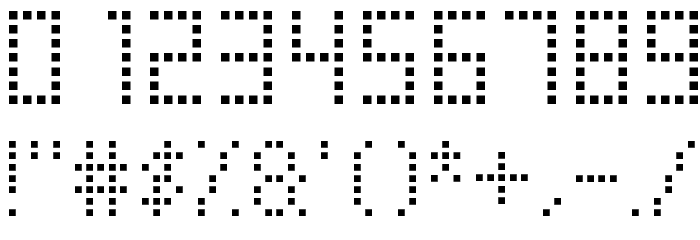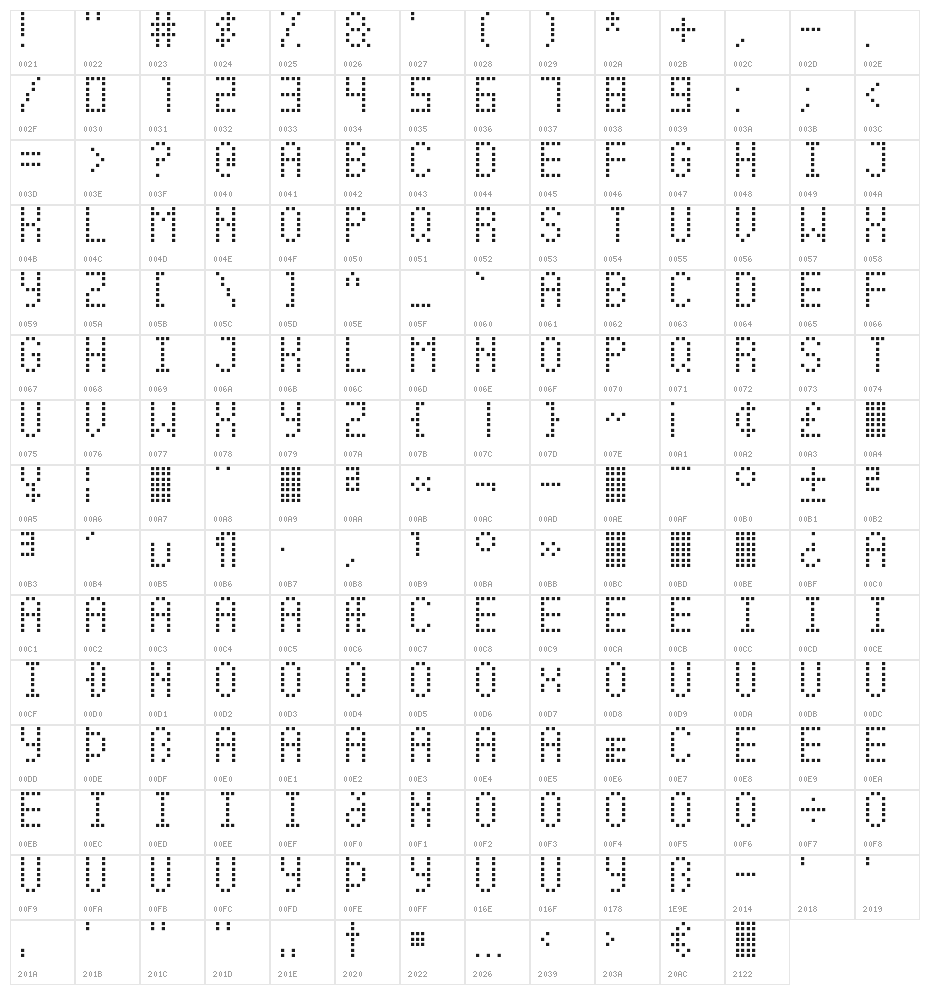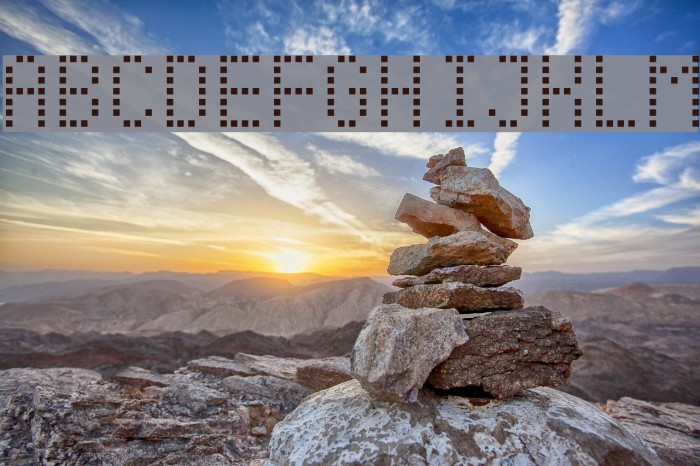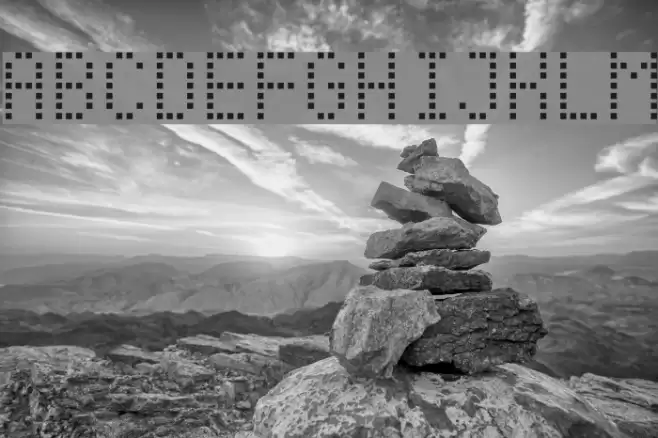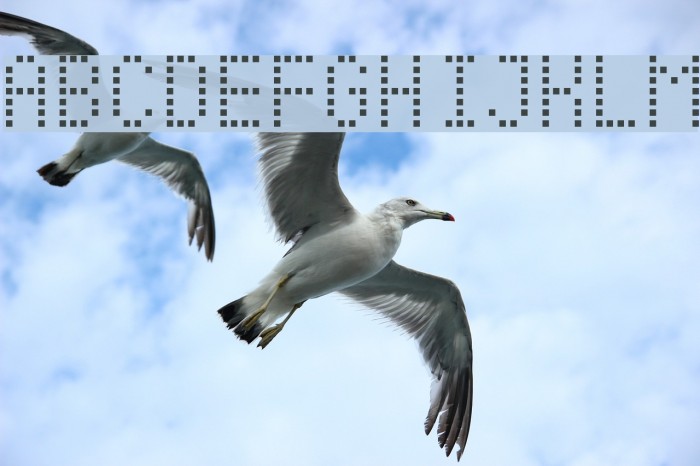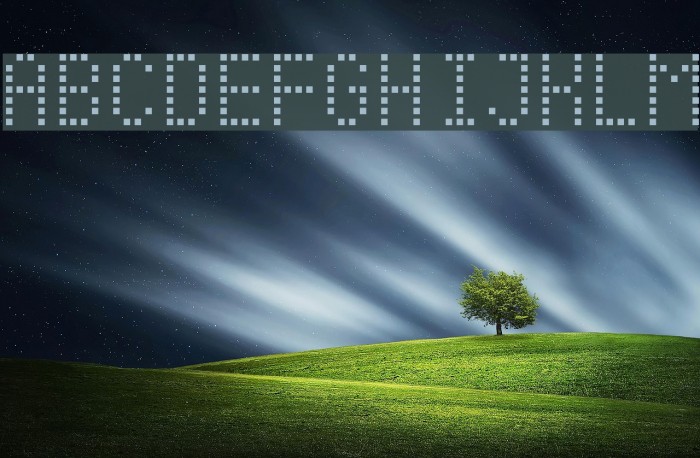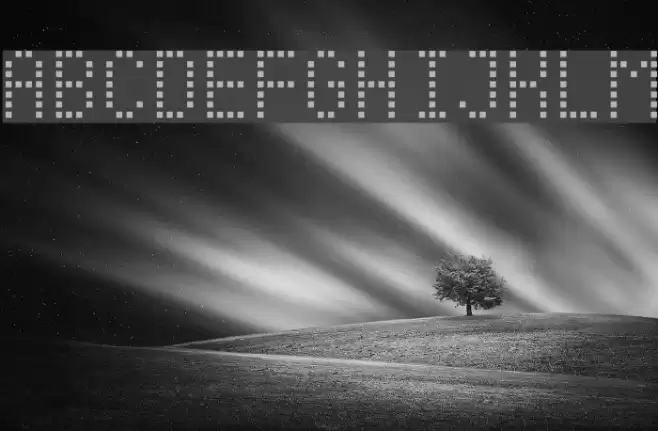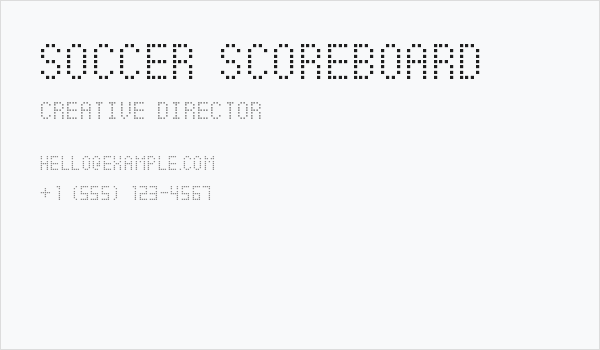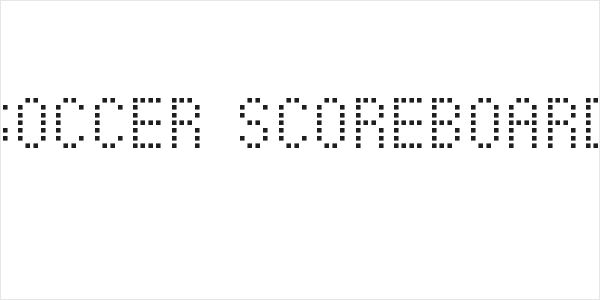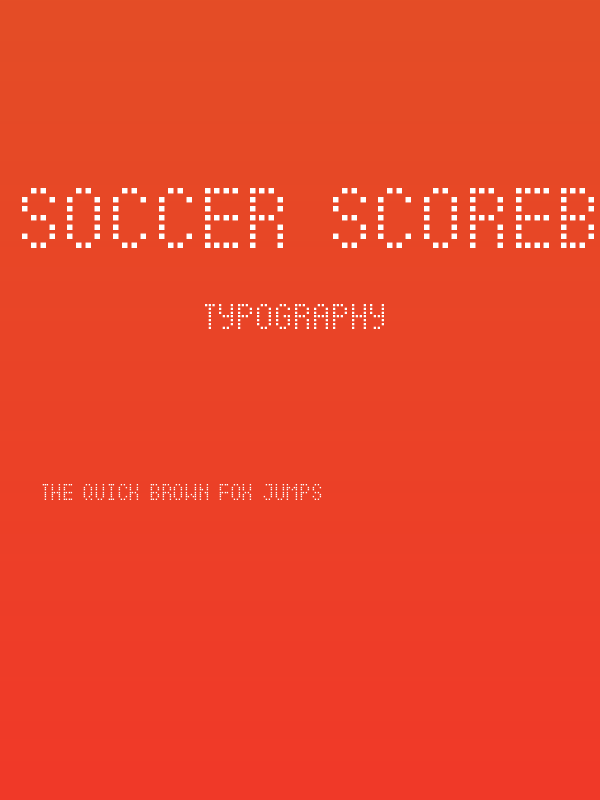
Soccer Scoreboard Font
Soccer Scoreboard Description
This font is designed with a digital dot matrix style, reminiscent of old-school electronic scoreboards and digital displays. Each character is constructed from a grid of dots, giving it a pixelated appearance. The uniformity of the dots creates a consistent and structured look, ideal for conveying information in a clear and straightforward manner. The font is monospaced, meaning each character occupies the same amount of horizontal space, which enhances its readability in digital formats. The design is minimalistic, focusing on functionality and clarity, making it suitable for environments where quick information dissemination is key.
| Use Case | Headlines, Digital displays, Scoreboards |
| Proposed Projects | Perfect for digital displays, electronic scoreboards, retro-themed designs, and any project requiring a digital or tech-inspired aesthetic. |